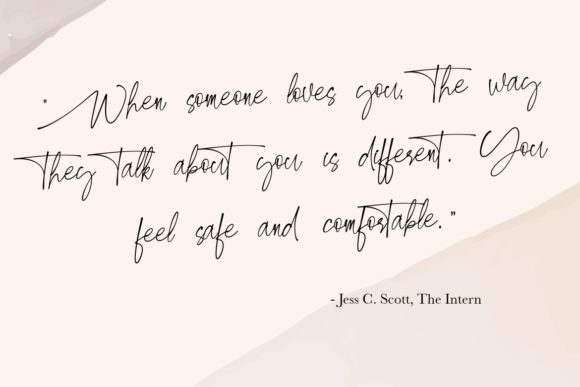
Introducing Carlista Buttery Font: Elevate Your Designs with Elegance
Are you looking for a font that can add a touch of sophistication and style to your design projects? Look no further than Carlista Buttery Font. This elegant handwritten font is designed to bring a natural and stylish look to your designs, making it perfect for a wide range of applications.
What is Carlista Buttery Font?
Carlista Buttery Font is a beautifully crafted handwritten font that exudes elegance and sophistication. With its natural and flowing lines, this font is perfect for adding a unique touch to any design project. Whether you’re working on a branding project, a website, or a marketing campaign, Carlista Buttery Font is sure to make your designs stand out.
Key Features of Carlista Buttery Font
So, what makes Carlista Buttery Font so special? Here are just a few of its key features:
• Elegant Handwritten Style: Carlista Buttery Font has a beautiful, elegant handwritten style that is perfect for adding a touch of sophistication to your designs.
• Natural Look: The font has a natural, flowing look that makes it perfect for use in a wide range of design projects.
• Unique Touch: With its distinctive style, Carlista Buttery Font is sure to add a unique touch to any design project.
• Highly Versatile: This font is highly versatile and can be used in a wide range of design projects, from branding and advertising to web design and more.
Benefits of Using Carlista Buttery Font
So, why should you choose Carlista Buttery Font for your design projects? Here are just a few of the benefits of using this elegant font:
• Adds Sophistication: Carlista Buttery Font adds a touch of sophistication and elegance to any design project.
• Stand Out from the Crowd: With its unique style, this font is sure to make your designs stand out from the crowd.
• Perfect for Branding: Carlista Buttery Font is perfect for use in branding projects, where a unique and elegant font can make all the difference.
• Easy to Read: Despite its elegant style, Carlista Buttery Font is easy to read, making it perfect for use in a wide range of design projects.
How to Use Carlista Buttery Font
Using Carlista Buttery Font is easy. Here are just a few tips for incorporating this elegant font into your design projects:
• Pair with Other Fonts: Carlista Buttery Font pairs well with other fonts, making it easy to use in a wide range of design projects.
• Use for Headings: This font is perfect for use in headings, where its elegant style can really shine.
• Add a Personal Touch: Carlista Buttery Font is perfect for adding a personal touch to your designs, making them more unique and engaging.
Design Projects Perfect for Carlista Buttery Font
So, what types of design projects are perfect for Carlista Buttery Font? Here are just a few ideas:
• Branding Projects: Carlista Buttery Font is perfect for use in branding projects, where a unique and elegant font can make all the difference.
• Web Design: This font is also perfect for use in web design, where its elegant style can add a touch of sophistication to any website.
• Marketing Campaigns: Carlista Buttery Font is perfect for use in marketing campaigns, where a unique and engaging font can help grab attention.
• Stationery Design: This font is also perfect for use in stationery design, where its elegant style can add a touch of sophistication to any business card, letterhead, or invoice.
Tips for Getting the Most out of Carlista Buttery Font
Here are just a few tips for getting the most out of Carlista Buttery Font:
• Experiment with Different Sizes: Don’t be afraid to experiment with different sizes of Carlista Buttery Font to find the one that works best for your design project.
• Play with Color: This font looks great in a wide range of colors, so don’t be afraid to experiment and find the color that works best for your design.
• Use in Combination with Other Design Elements: Carlista Buttery Font is perfect for use in combination with other design elements, such as images and graphics.
In conclusion, Carlista Buttery Font is a beautiful and elegant handwritten font that is perfect for adding a touch of sophistication and style to any design project. With its natural and flowing lines, this font is sure to make your designs stand out from the crowd. Whether you’re working on a branding project, a website, or a marketing campaign, Carlista Buttery Font is a great choice.